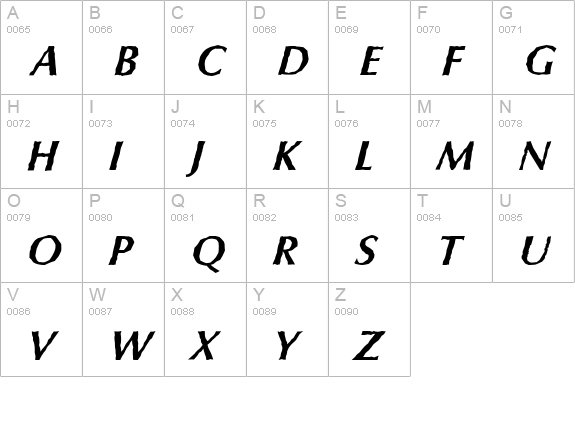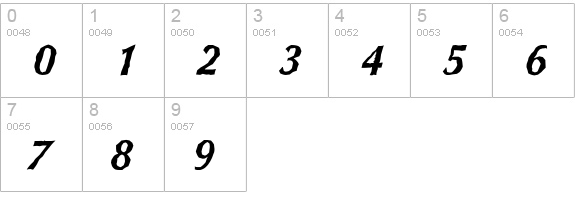
ColumbiaAntique-BoldItalic Font Details
ColumbiaAntique-BoldItalic is a timeless and elegant font that exudes sophistication and class. Its bold italic style conveys a sense of strength and luxury, making it ideal for adding a touch of refinement to any design project. The intricate details and classic serif elements of ColumbiaAntique-BoldItalic make it a versatile choice for a variety of applications, from invitations to logos to packaging. Best of all, ColumbiaAntique-BoldItalic is available for free download at FontsMarket.com. This means you can easily access this exquisite font without any cost, allowing you to elevate your projects with a touch of timeless elegance. Whether you're a designer looking for a new go-to font or simply appreciate the beauty of well-crafted typography, ColumbiaAntique-BoldItalic is sure to make a lasting impression. Download it today and add a touch of sophistication to your creations.